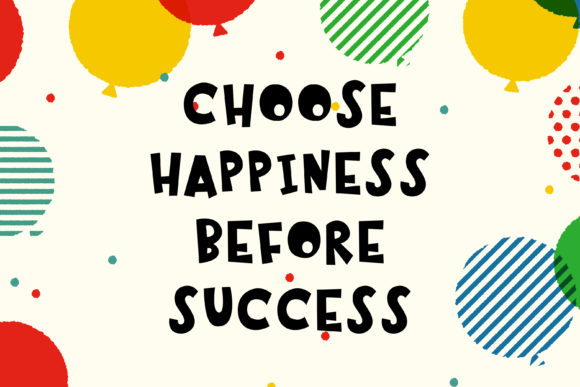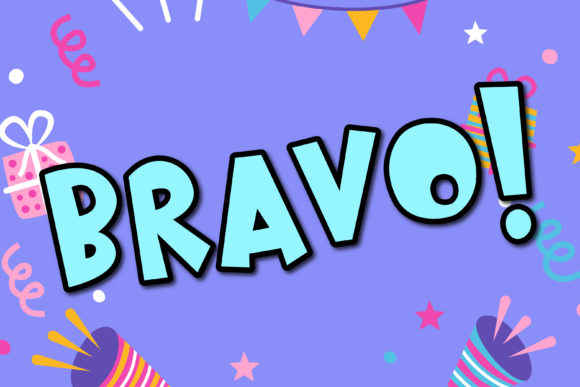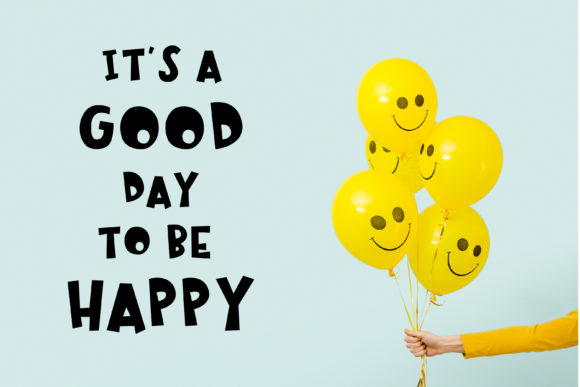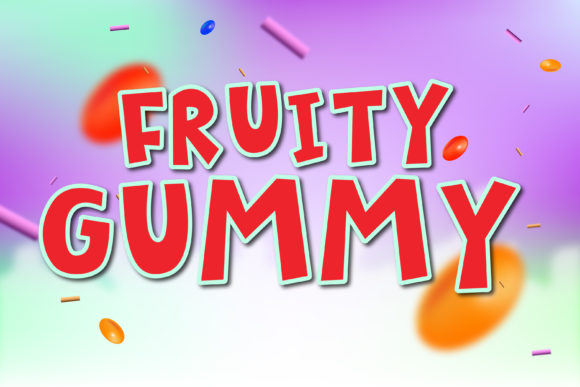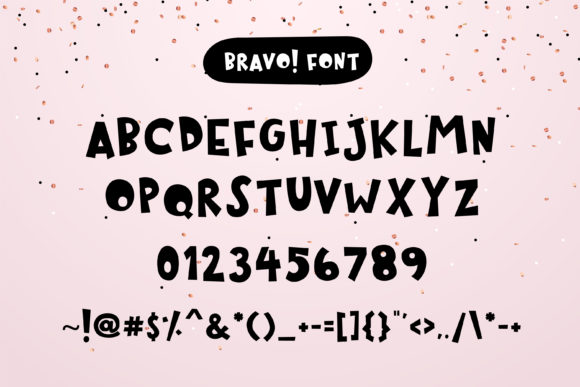
Introduction to Party Time Font
Have you ever been in the middle of a creative project, pouring your heart and soul into every detail, only to feel like something’s missing? You’ve got your design resource in place, but it just doesn’t pop. That’s where the Party Time Font comes in – a game-changer that can instantly elevate your work and leave a lasting impression.
With its friendly, relaxed vibe, this high-quality display font is perfect for designers looking to add a personal touch to their projects. Whether you’re working on a graphic design project or creating a social media post, the Party Time Font is sure to make your work stand out. And the best part? It’s available for a free download, complete with a transparent background, making it easy to integrate into any design.
Key Features of Party Time Font
- Unique Party Time Font style, perfect for creative projects and celebrations.
- High-quality design resource with a transparent background, ideal for various backgrounds.
- Includes a wide range of characters, including uppercase and lowercase letters, numbers, and symbols.
- Designed with a high resolution of 300 DPI, suitable for print and digital use.
- Perfect for party invitations, posters, and other creative projects where a fun and playful font is required.
Honest Review: Party Time Font
I recently stumbled upon the Party Time Font, and I have to say, it’s been a game-changer for my creative projects. The font is a great addition to any design resource, adding a fun and playful touch to my designs.
- ✨ The font comes with a transparent background, making it easy to use in a variety of design scenarios.
- ✨ The font is highly customizable, allowing me to tweak the size, color, and style to fit my creative vision.
- ⚠️ The font may not be suitable for formal or professional projects, as it’s more geared towards casual and creative pursuits.
- ⚠️ The font family is relatively small, with only a few weights and styles to choose from.
Overall, I’m impressed with the Party Time Font. It’s a high-quality font that’s perfect for adding a fun and creative touch to my designs. While it may have some limitations, it’s a great addition to any design resource and is definitely worth checking out.
Tips for Getting the Most Out of Party Time Font
For a transparent background, use the font on a white or light-colored background. Experiment with different font sizes and colors to create a unique visual effect.
Party Time Font is perfect for party invitations, social media graphics, and promotional materials. Its high-quality design makes it suitable for both digital and print media.